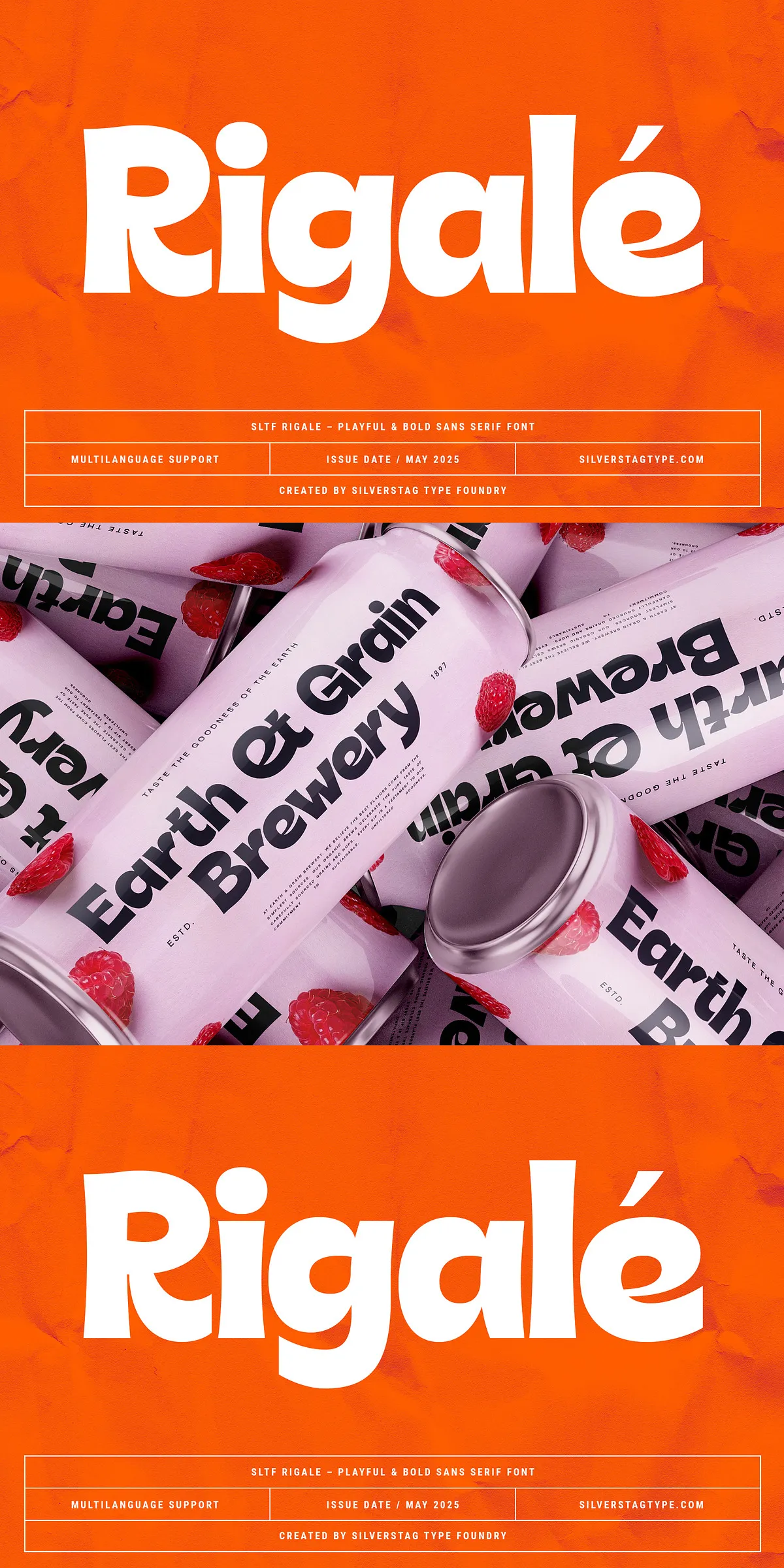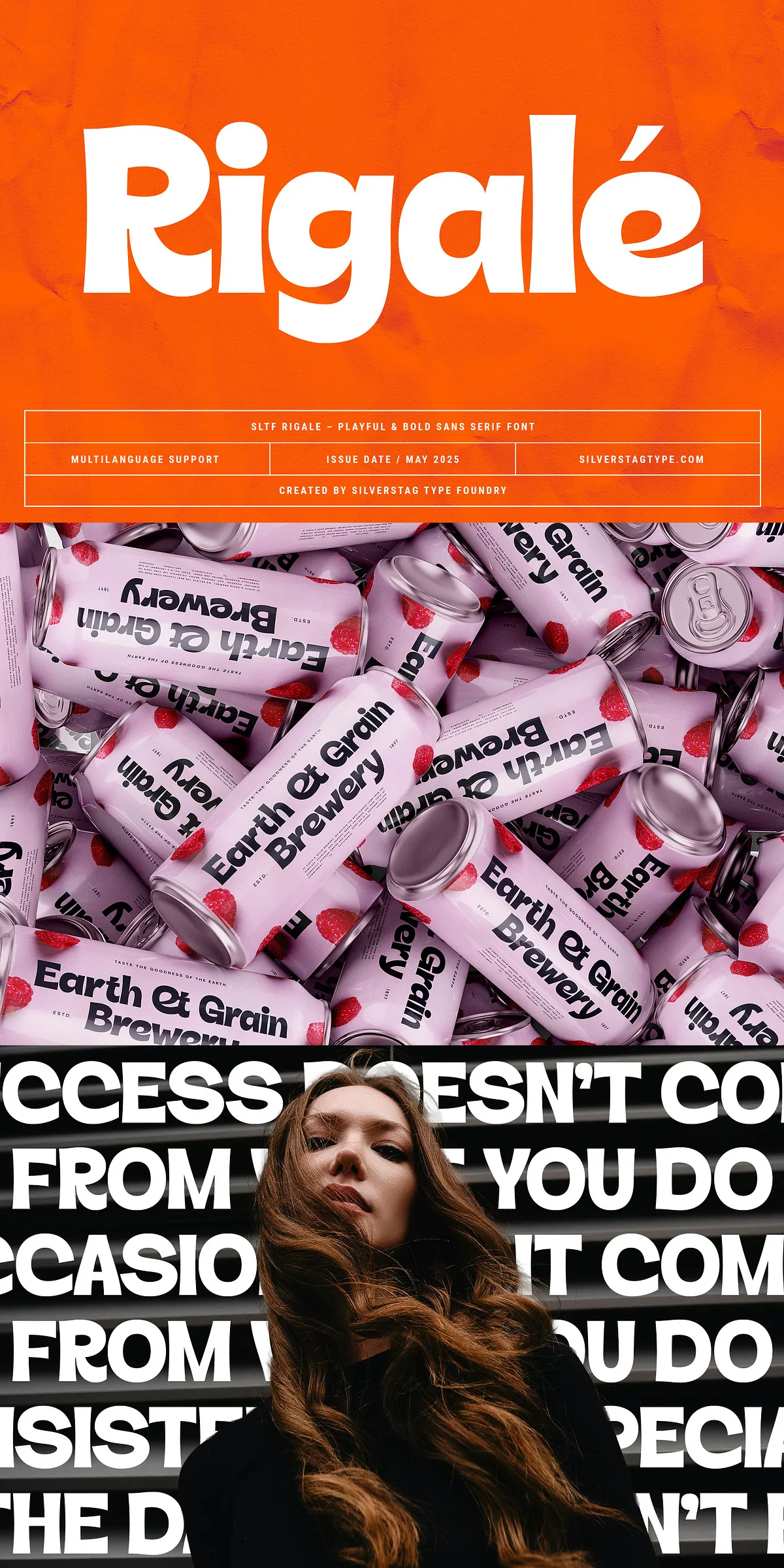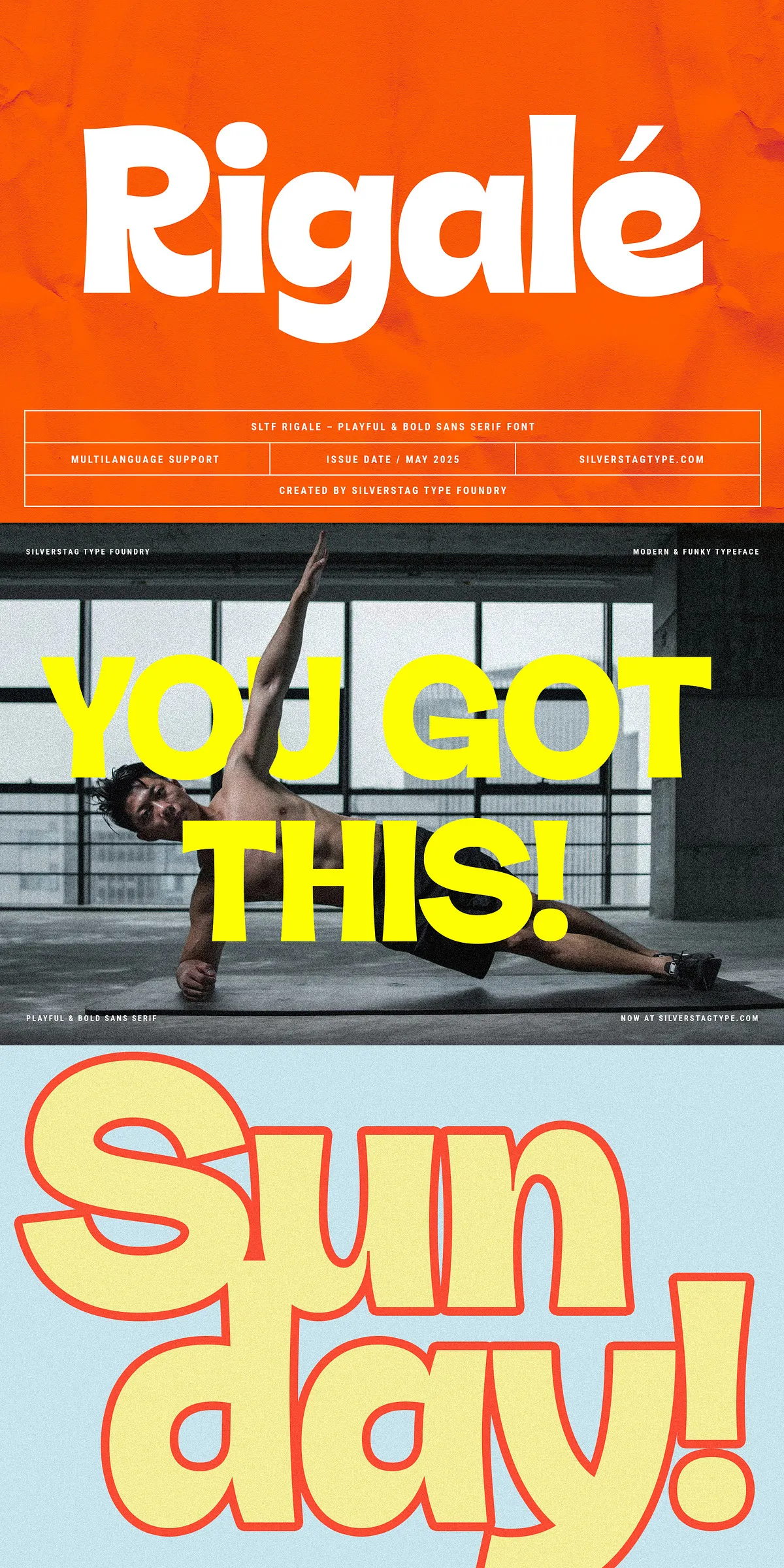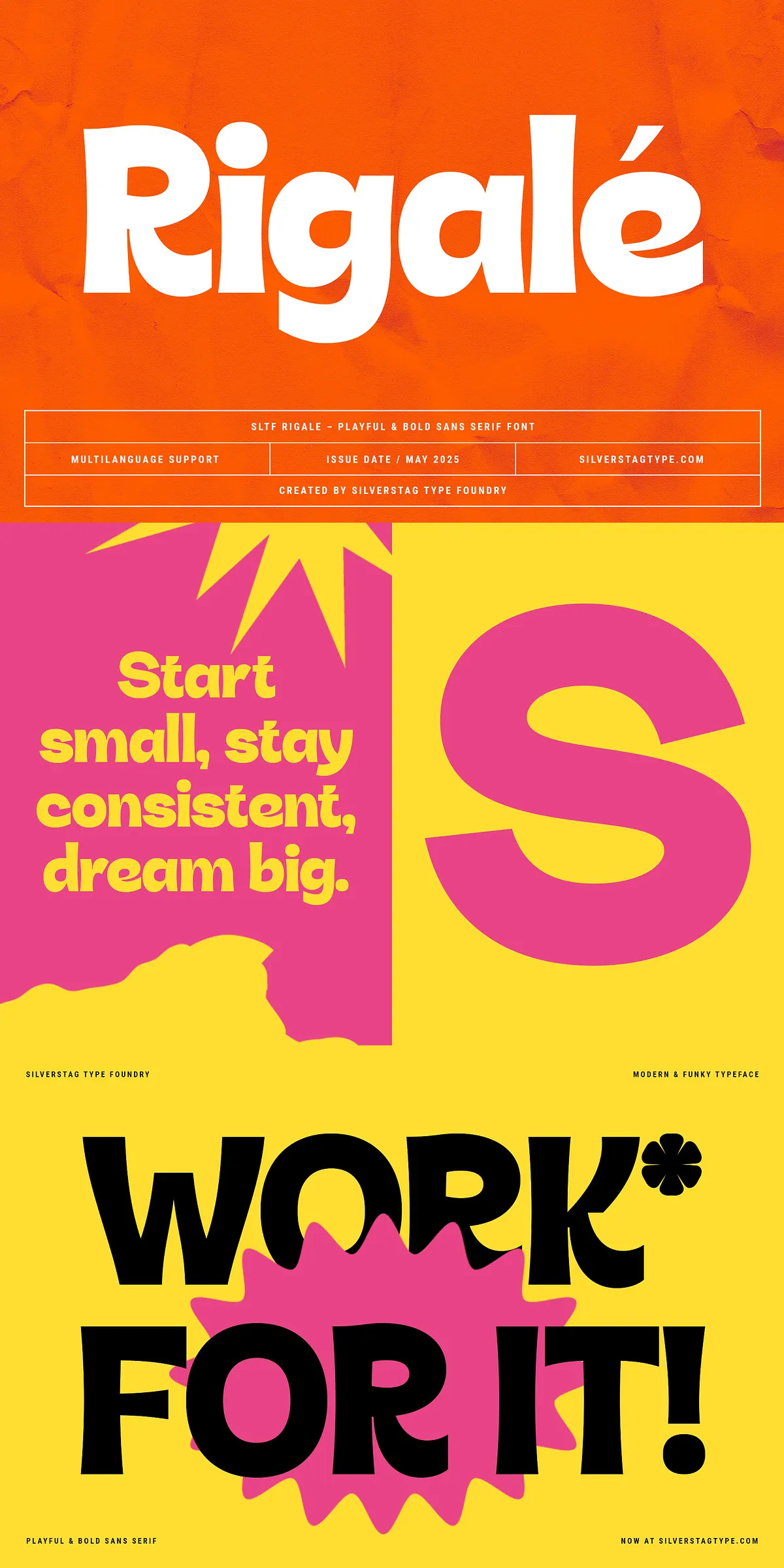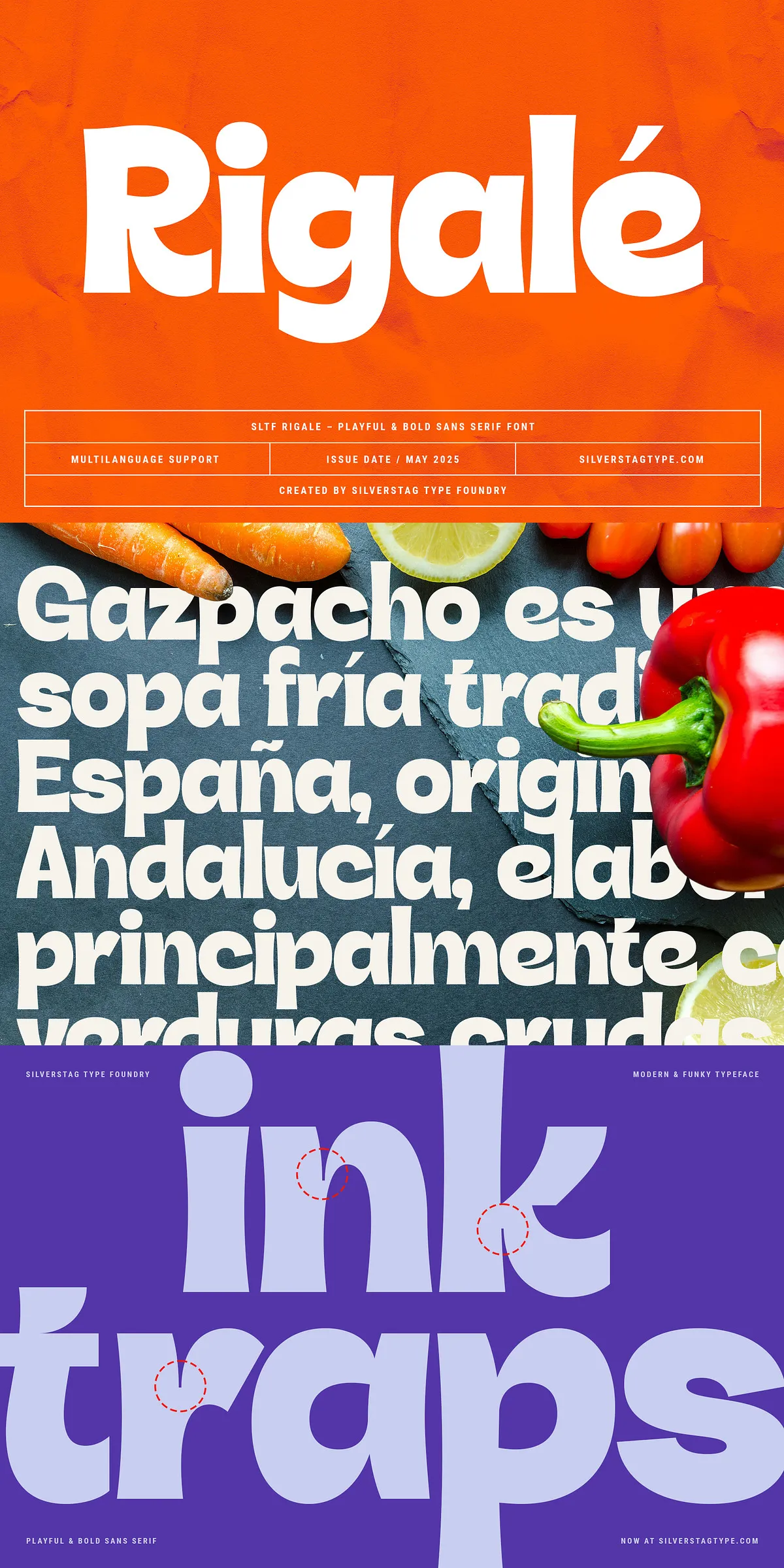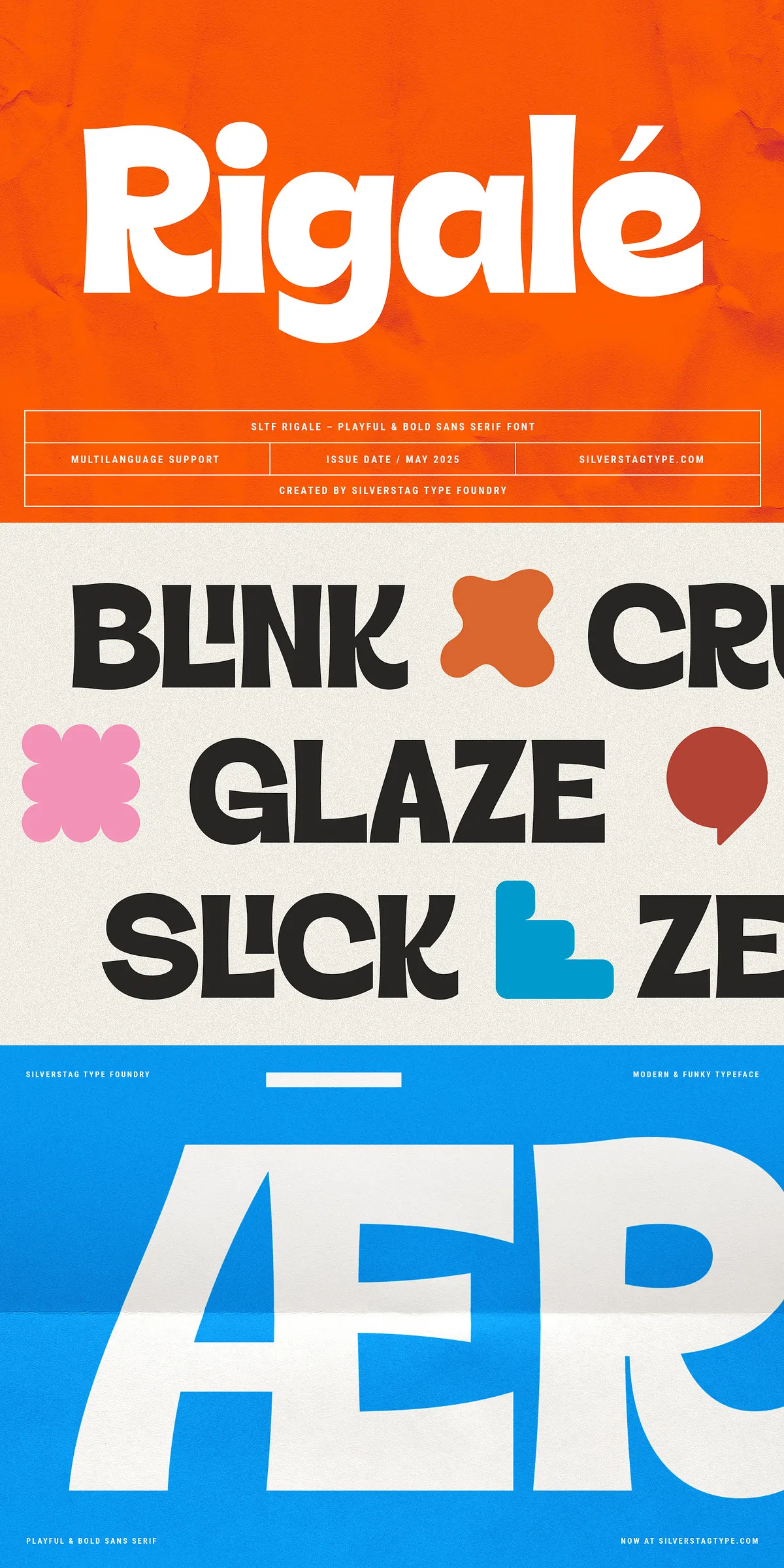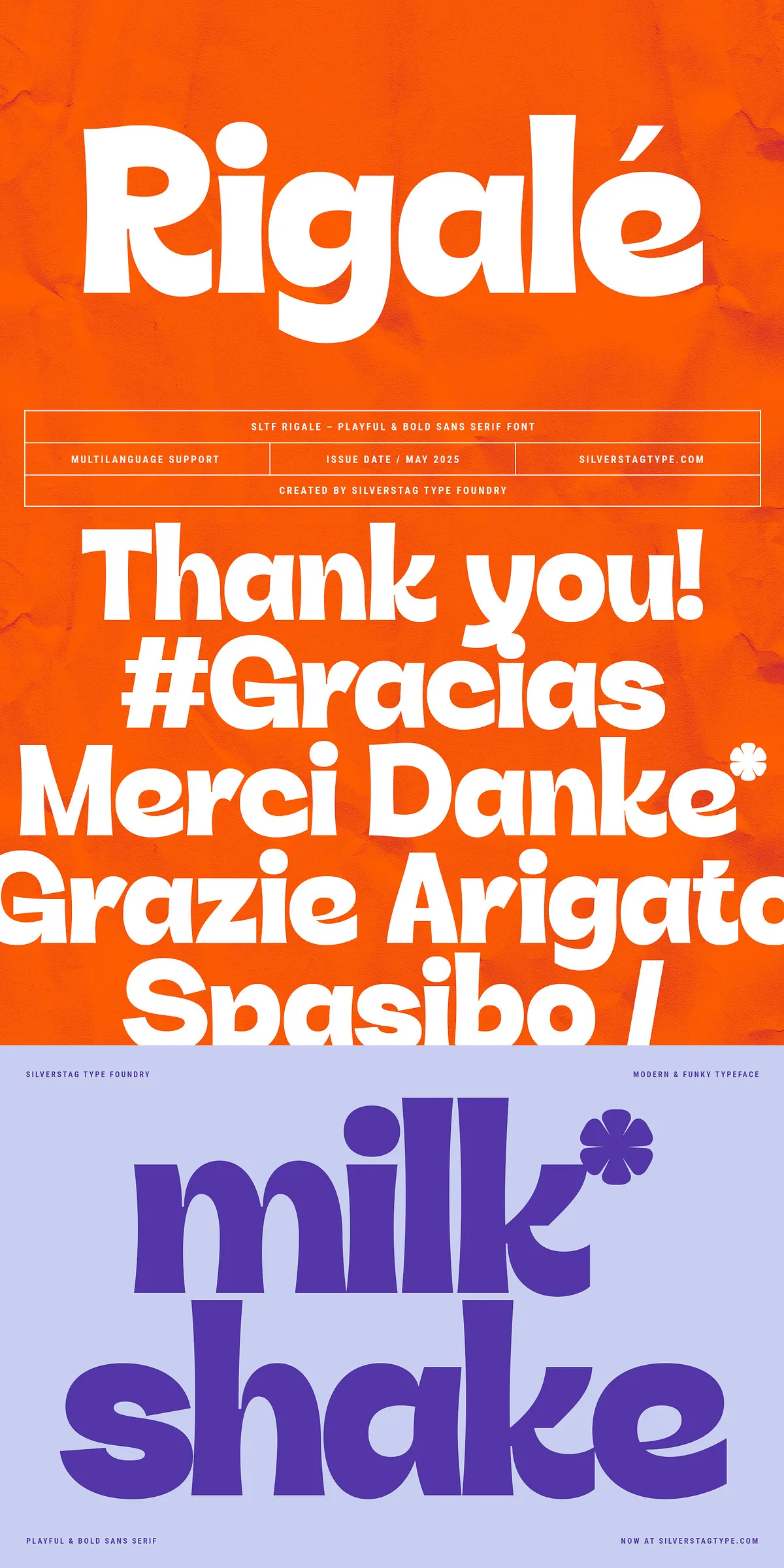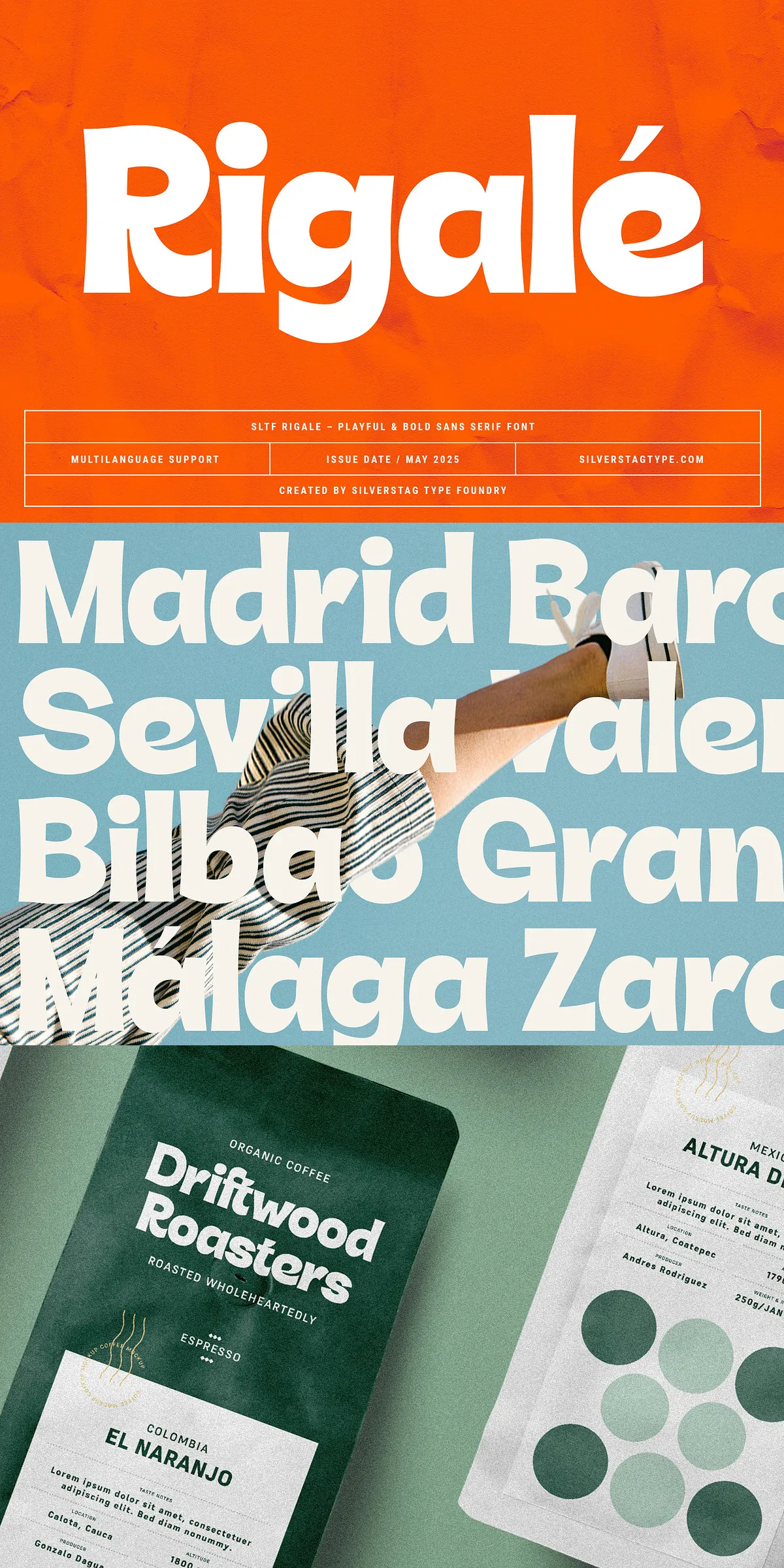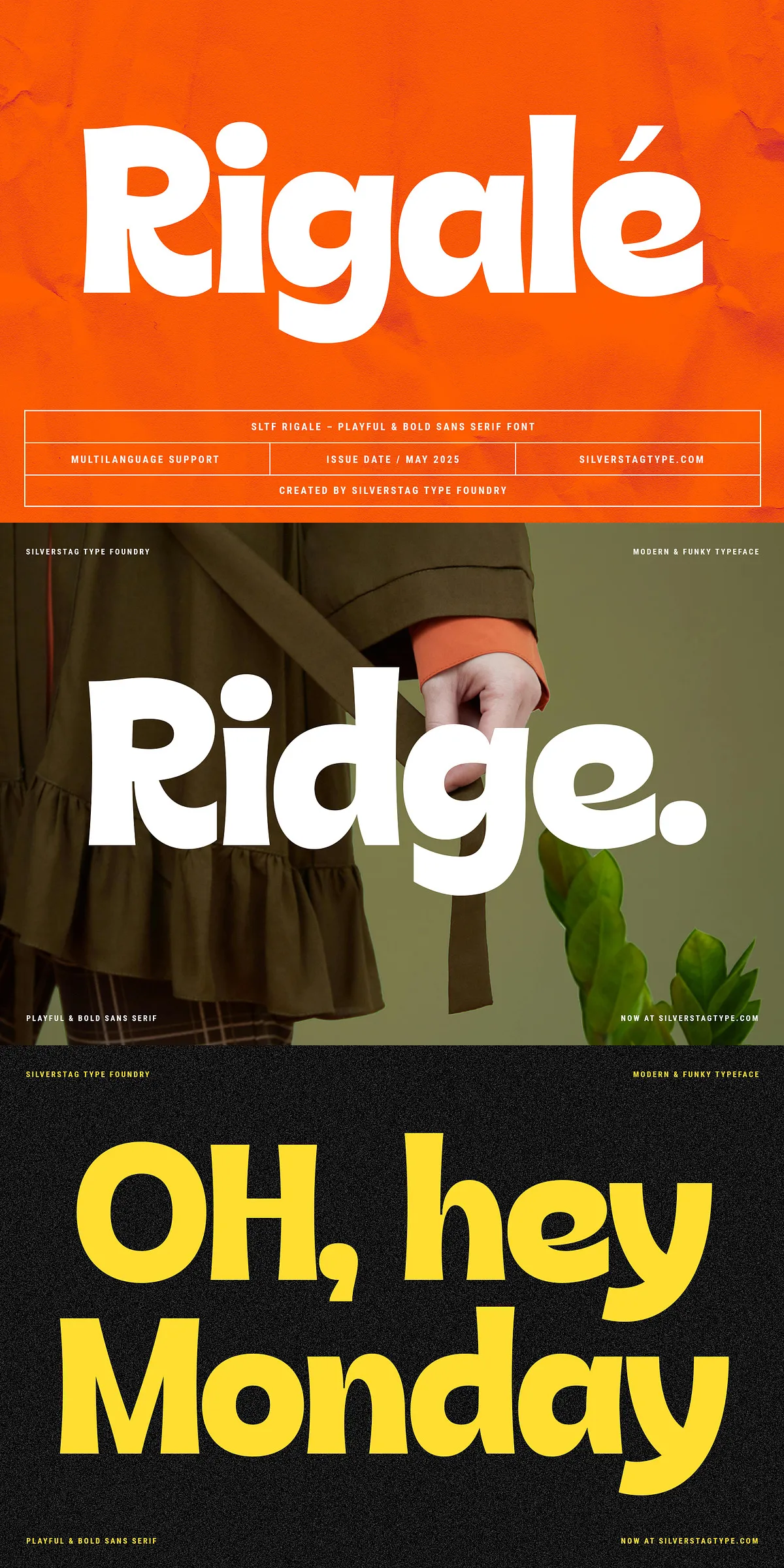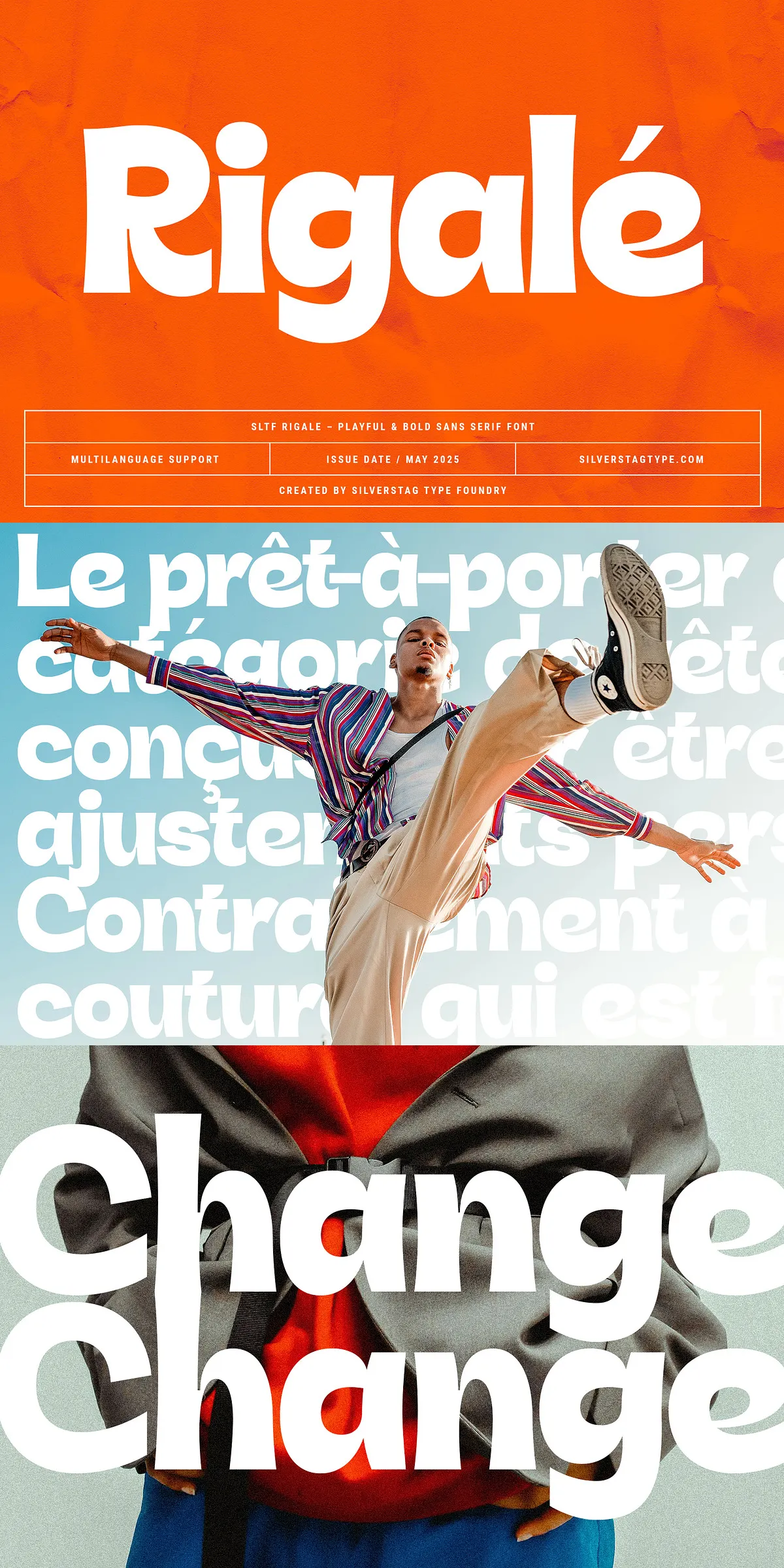
Meet SLTF Rigalé — a modern sans-serif font that refuses to blend in. With its exaggerated vertical stress, expressive curves, and rhythmic flow, Rigalé injects life into every word it types. It’s not just a font; it’s a design attitude. Escape the sterile minimalism of generic typefaces and step into a world where letters breathe, curve, and dance with intent. Whether you’re crafting standout packaging, bold brand identities, vibrant Instagram graphics, or eye-catching apparel, Rigalé brings instant personality and unmatched energy to your work.
Why Rigalé Stands Out in a Sea of Sameness
- Dynamic Visual Rhythm: Every letterform is crafted for movement. The exaggerated strokes and flowing serifs give Rigalé a dynamic, almost musical cadence that draws the eye and commands attention.
- Playful Yet Professional Character: It balances whimsy with structure, making it perfect for brands that want to feel modern and approachable without sacrificing sophistication.
- 100+ Custom Ligatures & Alternates: Avoid repetitive lettering. With over a hundred unique ligatures and stylistic alternates, your typography stays fresh, fluid, and full of design depth — no two headlines ever have to look the same.
- Full Multilingual Support: Backed by comprehensive character sets, Rigalé supports over 90 languages, including Western European, Eastern European, Cyrillic, and extended Latin scripts — ideal for global brands and multilingual campaigns.
Where Rigalé Shines: Real-World Applications
Rigalé isn’t just beautiful — it’s designed to deliver in real creative environments. Here’s how top-tier designers are putting it to work:
Powerful Use Cases for Maximum Impact
- Brand Identity & Logo Design: Use the bold uppercase forms for a strong brand name, then apply the lowercase letters with playful alternates for taglines. Create a memorable presence from the very first letter.
- Product Packaging & Labels: Transform plain boxes and bottles into lifestyle icons. Rigalé’s rounded, lively forms add a premium yet fun edge, especially effective for food, beauty, and lifestyle brands.
- Lifestyle & Apparel Graphics: Perfect for T-shirts, tote bags, and merch prints. The bold, expressive forms translate beautifully across fabrics and scales — making your designs instantly wearable art.
- Poster Design & Event Branding: Grab attention at concerts, pop-ups, and exhibitions. Rigalé’s energy and personality make your event flyers impossible to ignore.
- Social Media Content & Digital Ads: Stand out in feeds with headlines that are bold, expressive, and full of character. Ideal for quote cards, announcements, and branded storytelling.
Pro Design Tip: Make Rigalé Work for You
To get the most out of Rigalé, pair it with a clean, neutral body font (like Inter, Lato, or Roboto) for text blocks. Let Rigalé dominate headlines, titles, and visual accents — where its bold personality can truly shine. Use color palettes like coral, deep navy, or soft ivory to amplify its dynamic presence. And never underestimate the power of spacing — open kerning gives Rigalé room to breathe and truly stand out.